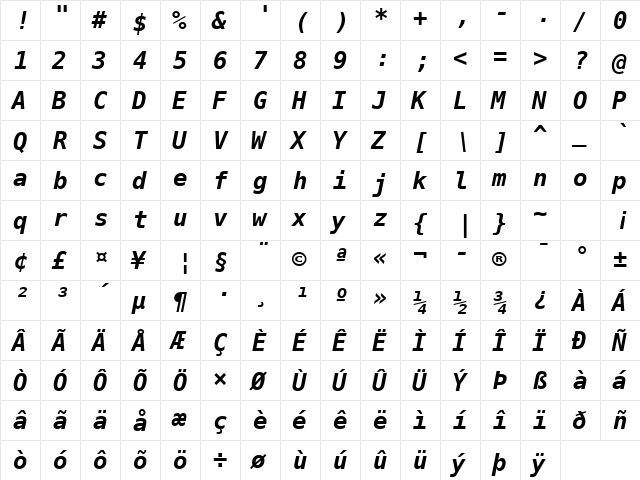
Bitstream Vera Sans Mono Bold Oblique Font Preview
Design Context for Bitstream Vera Sans Mono Typeface
Bitstream Vera Sans Mono uses fixed-width spacing throughout, giving it the structured, systematic character associated with coding environments and technical documentation. The slanted form adds forward momentum and visual energy. The heavy weight commands attention and anchors typographic hierarchies.
A natural fit for code editors, technical documentation, developer-focused branding, and terminal-inspired UI.
Pro Tip: Pair Bitstream Vera Sans Mono with a proportional sans for UI contexts where code-style labels and regular body copy need to coexist.